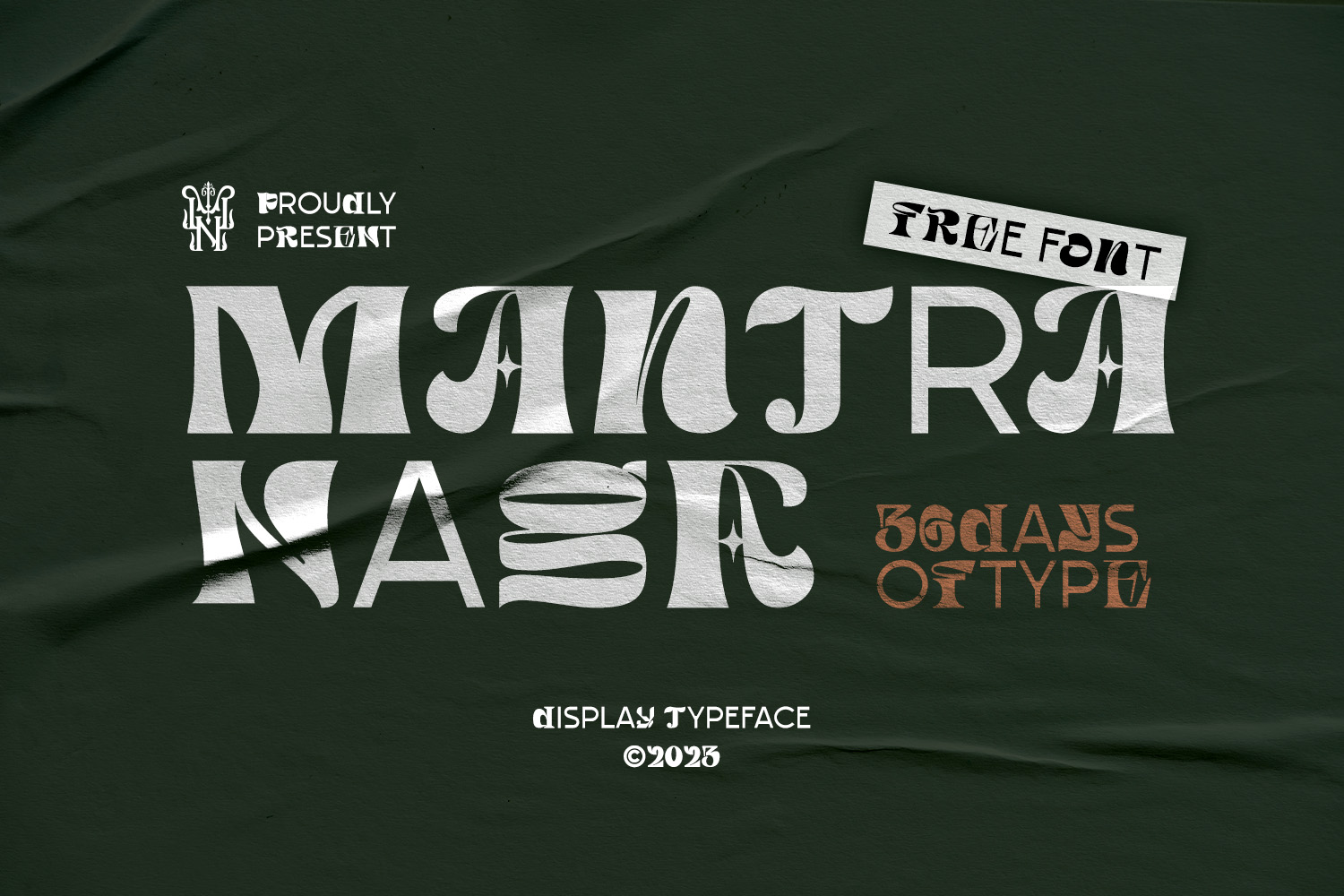
Mantranaga 36 DaysOfType Font
Designed by Mantra Naga Studio
About Mantranaga 36 DaysOfType
This is a font that we created to celebrate the 10th edition of 36daysofttype in 2023. We created various font styles, from serif, sans, to decorative typefaces. This font is also available with numbers, punctuation and multilingual characters